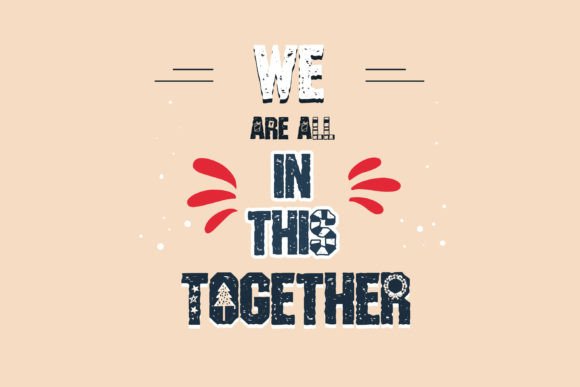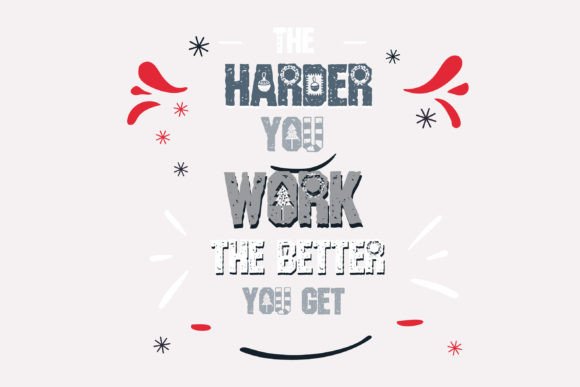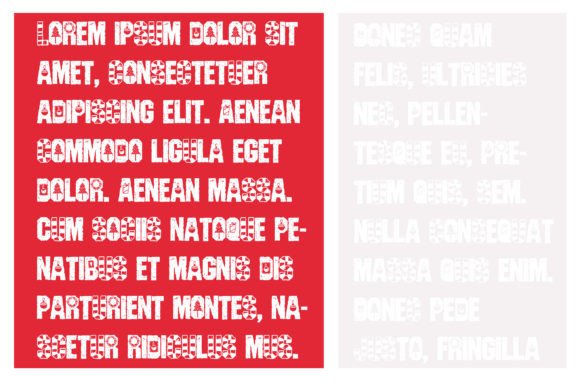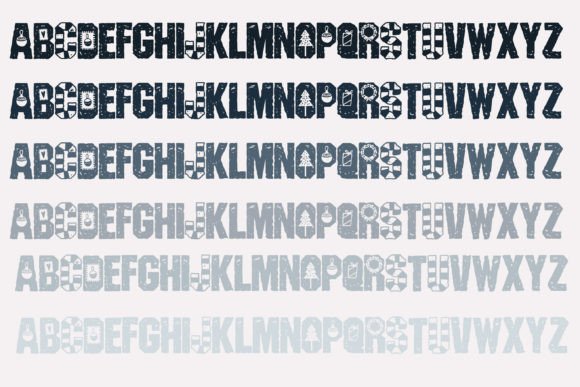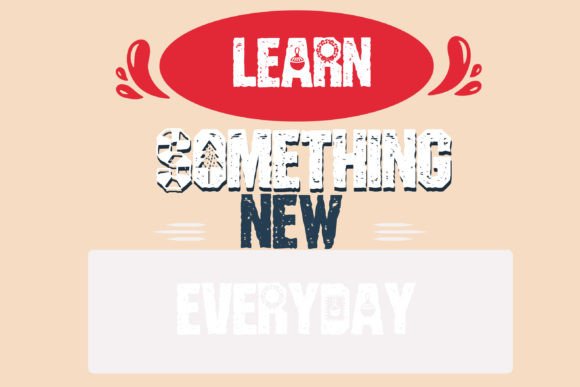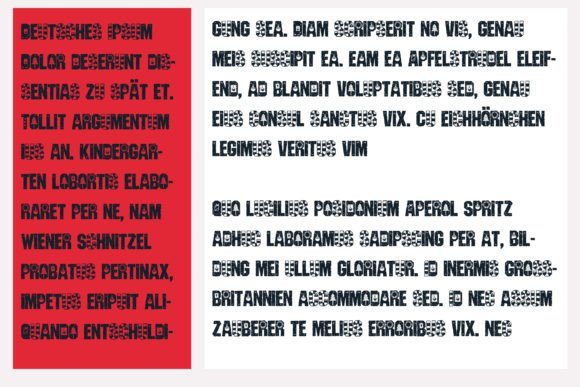
Introduction to Jersey Joy Font
As designers, we’ve all been there – staring at a blank canvas, trying to spark that creative flame that drives our projects forward. For some of us, it’s the sound of a pen scratching against paper, or the feel of a pencil gliding across a sketchpad. But with the rise of digital design tools, it’s easy to get caught up in the latest trends and forget about the simple joys of handwritten fonts.
That’s where the Jersey Joy Font comes in – a beautiful, hand-crafted font that’s been decked out in festive holiday flair, complete with candy cane stripes and ornaments. This design resource is a game-changer for designers looking to add a personal touch to their projects, and with a transparent background and high-quality design, it’s the perfect addition to any creative project.
Whether you’re working on a holiday card or a birthday invitation, the Jersey Joy Font is a free download that’s sure to bring a smile to your clients’ faces. And with its versatility and ease of use, it’s a valuable resource that’s sure to become a go-to design staple for designers of all levels.
- Unique, hand-drawn design with a playful and carefree feel, perfect for creative projects.
- Perfect for designers, artists, and writers looking for a fun and whimsical font to add a touch of Jersey charm to their work.
Honest Review: Jersey Joy Font
I recently stumbled upon the Jersey Joy Font, a free design resource that has caught my attention. As a designer, I’m always on the lookout for high-quality fonts that can elevate my creative projects.
What works well about the Jersey Joy Font is its playful and cheerful vibe, perfect for projects that require a touch of whimsy. The font is available for free download, making it an excellent choice for designers on a budget or those who want to experiment with different styles.
- ✨ Playful and cheerful design style
- ✨ High-quality font suitable for various creative projects
However, there are some limitations to consider. The font lacks versatility, as it’s primarily designed for display use. Additionally, the transparent background option can be a bit tricky to work with, especially for designers who are not familiar with advanced design software.
- ⚠️ Limited versatility for text-heavy projects
- ⚠️ Can be challenging to work with transparent backgrounds
Overall, the Jersey Joy Font is a great addition to any designer’s toolkit, especially for projects that require a lighthearted and playful tone. While it may not be suitable for every project, its high-quality design and free download make it a valuable resource for designers of all levels.
To get the most out of the Jersey Joy Font, use it on a transparent background to create a clean and minimalist design. Experiment with different font sizes and styles to add visual interest to your project.
The Jersey Joy Font is ideal for creative projects requiring a high-quality, modern font. Use it for logos, business cards, and other design elements where a clean and sophisticated look is desired.